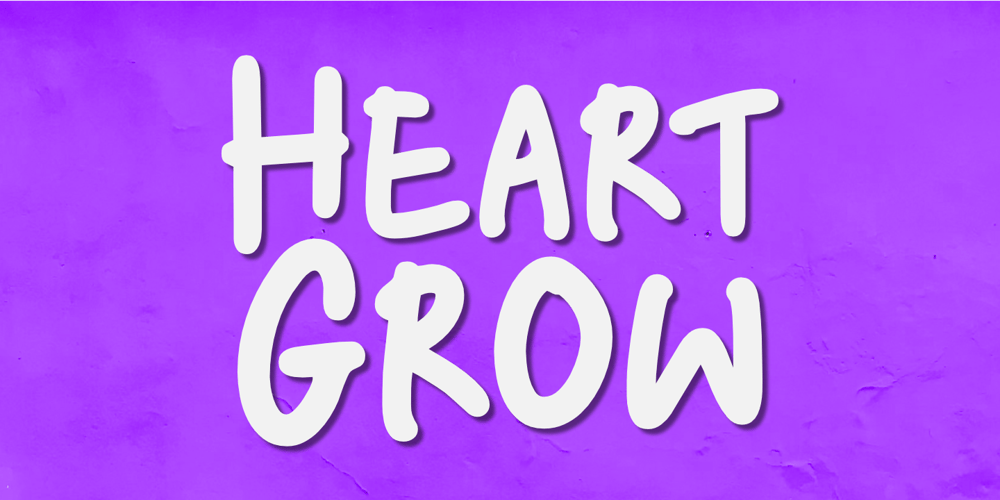
Heart Grow Font Family was designed by Nurul Hidayani and published by Olivetype. Heart Grow contains 1 styles and family package options. Love is in the air—or at least it should be! Get that perfect, happy feeling with Heart Grow. This font is great for adding some personality to all your occasions, making it perfect for logos, cards, labels, and more.So what’s included : Standard Latin Numbers, symbols, and punctuations Multilingual Support. Accented Characters : ÀÁÂÃÄÅÆÇÈÉÊËÌÍÎÏÑÒÓÔÕÖØŒŠÙÚÛÜŸÝŽàáâãäåæçèéêëìíîïñòóôõöøœšùúûüýÿžß PUA Encoded and fully accessible without additional design software Simple Installations Works on PC & Mac Thank You!